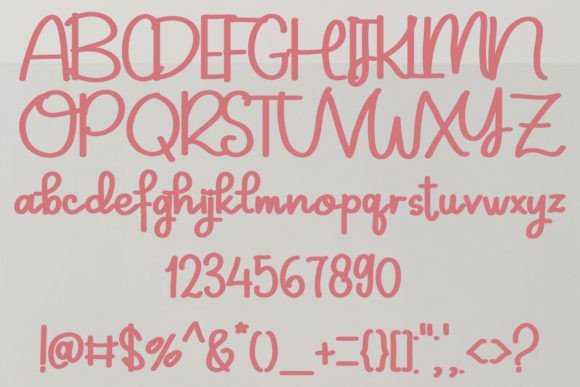
About Intan Ambiya Font
Intan Ambiya font is a carefully crafted handwritten script, created with attention and skill using a tablet. This font combines simplicity and style, making it an ideal choice for many creative projects that require a personal and elegant touch.
Crafted with Care and Precision
Designed to mimic natural handwriting, Intan Ambiya captures the charm of authentic hand lettering while keeping readability and sophistication intact. Its smooth, flowing strokes bring warmth and personality to any design.
Versatile for Various Projects
Whether you’re working on websites, wedding invitations, business cards, or personal signatures, Intan Ambiya fits perfectly. It is also suitable for advertisements, whether promoting products or other marketing materials, adding a distinct and modern flair.
Simple but Stylish Design
Despite its simplicity, Intan Ambiya carries a cool and stylish vibe. Its clean lines and graceful curves make your text stand out in an elegant yet approachable way. This balance makes it great for projects that want a modern yet timeless handwritten look.
Key Features of Intan Ambiya Font
Handwritten script created with a tablet
Perfect for weddings, business cards, websites, and signatures
Clean, simple, and stylish design
Ideal for advertisements and branding needs
Why Choose Intan Ambiya?
Intan Ambiya font offers a perfect mix of elegance and simplicity. It is an excellent option for creatives seeking a modern handwritten style that is both versatile and visually appealing. Its broad range of uses makes it a valuable addition to any designer’s toolkit.
In conclusion, Intan Ambiya font is a beautiful and adaptable handwritten script that enhances your projects with style and personality. Its thoughtfully designed strokes and wide applicability ensure it will be a favorite for many creative uses.